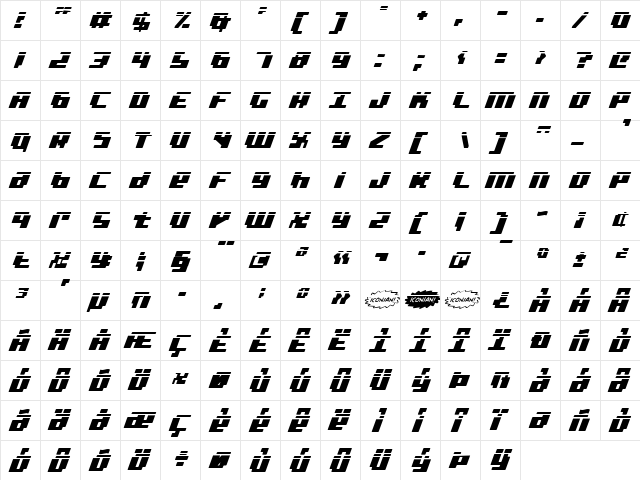
bad robot italic laser Italic Laser Font Preview
bad robot italic laser Italic Laser
bad robot italic laser Italic Laser Font Details
| Style | Italic Laser |
| Designer | Dan Zadorozny |
Design Context for bad robot italic laser Typeface
bad robot italic laser is a composed and adaptable typeface that performs quietly and consistently across a wide range of design contexts. The slanted form adds forward momentum and visual energy.
Pro Tip: Try bad robot italic laser for annotation and caption copy alongside an upright companion — the contrast in angle creates a dynamic but ordered typographic system.